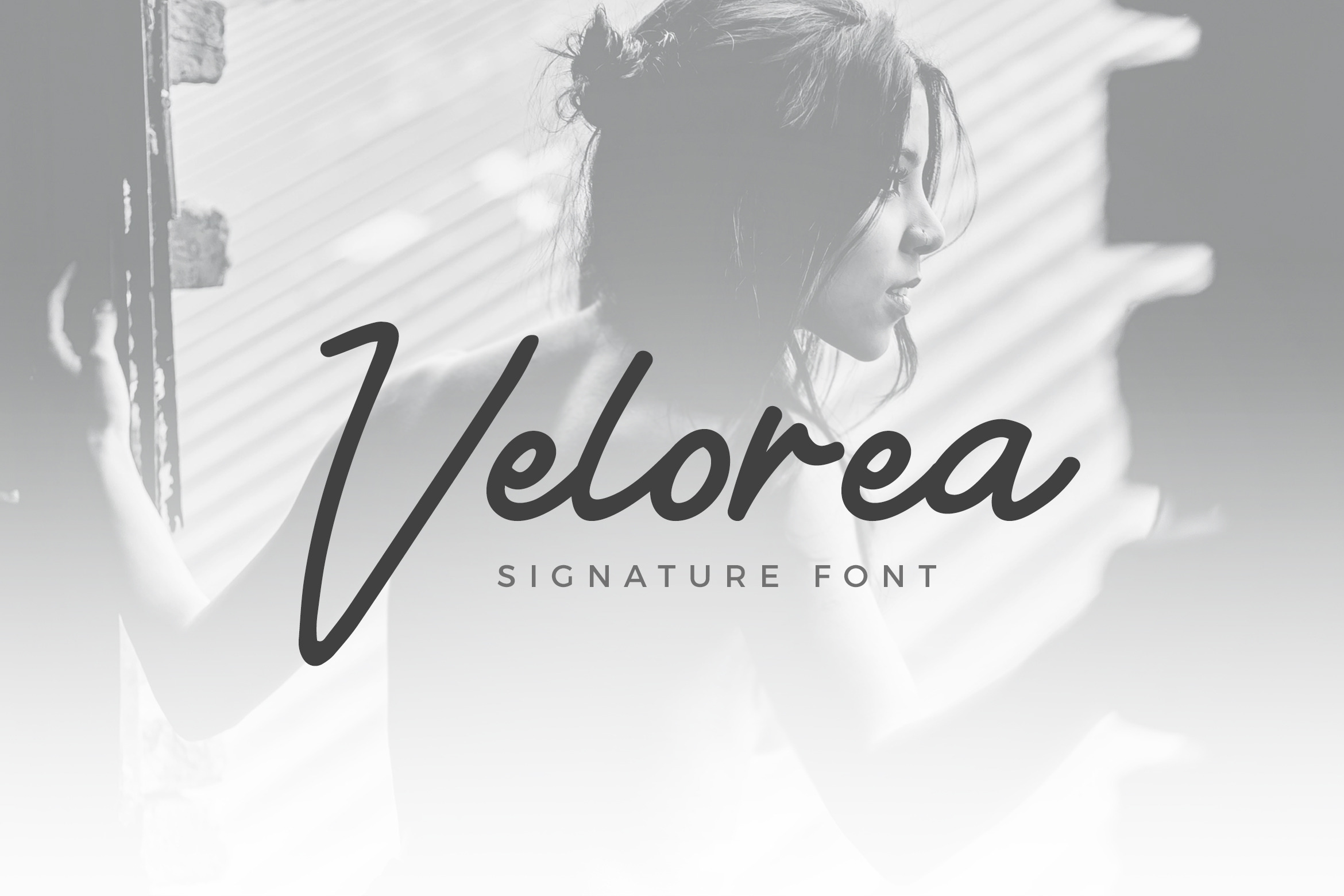
Velorea - Signature Font
Create a Extraordinary Typography / lettering results by using Velorea - Signature Font. Best match for logos, header, Titles, Prints & other Creative process possibilities.
- Ton of glyphs included
- Good pair with other font
- Clean Results